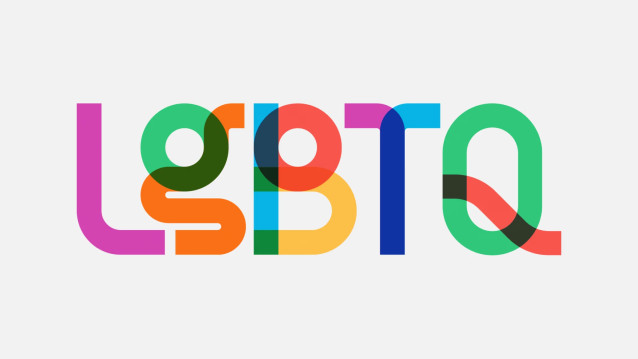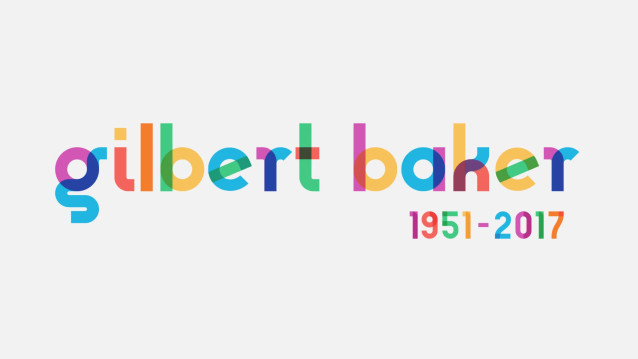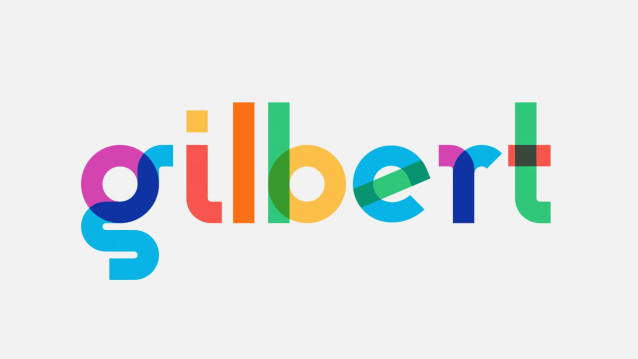
Gilbert Typeface is a bold, expressive display typeface created to honor the iconic artist and activist Gilbert Baker, the creator of the original Rainbow Flag. Designed with pride at its core, Gilbert celebrates diversity and creativity, making it a powerful visual voice for the LGBTQIA+ community and beyond.
The typeface was born from the Type With Pride initiative, a collaboration between NewFest, NYC Pride, Ogilvy, and Fontself, launched to mark the legacy of Gilbert Baker. It embodies the spirit of inclusion and the fight for equal rights, transforming Baker’s original rainbow symbol into a living, typographic formpackage.
Gilbert’s letterforms are geometric, confident, and highly legible at large sizes, perfectly suited for headlines, posters, protest signs, and statements that need to be seen and felt. The design features strong horizontal and vertical strokes with distinctive rounded shapes, conveying both warmth and strength.
A standout feature of the typeface is the color font version, which overlays the classic rainbow stripes directly within the letterforms. This innovative use of the OpenType-SVG format allows designers to instantly add a dynamic, multicolored impact to their work, a true first of its kind when it launchedpackage.
Gilbert is available in both a standard solid version and the celebrated color version. The solid version maintains the same bold geometry and works effectively in monochrome settings, while the color version explodes with vibrancy, channeling the energy of Pride parades and creative self-expression.
This typeface isn’t just a design tool — it is a movement, an invitation to “Type With Pride.” By using Gilbert, designers and creators join in amplifying messages of love, acceptance, and freedom, keeping Baker’s legacy alive in every letterpackage.